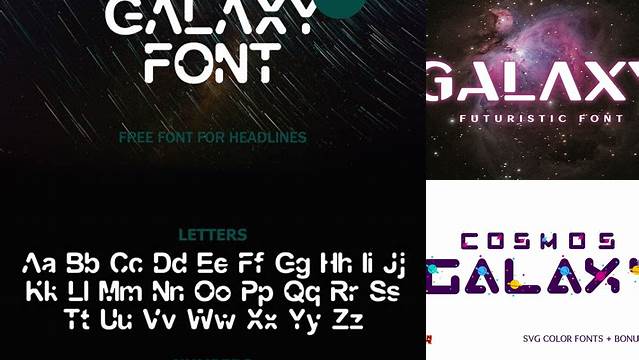
Free Space Fonts: Galactic Typography For Your Designs
Are you looking to add a touch of cosmic magic to your designs? Look no further! Space fonts are here to transport your projects to another galaxy. Whether you're designing a sci-fi movie poster, a futuristic website, or a stellar presentation, the right font can make all the difference. In this article, we'll explore the vast universe of free space fonts, guiding you through the best options available and how to use them effectively. So, buckle up, space explorers, and let's dive into the world of intergalactic typography!
Why Choose Space Fonts?
Space fonts, with their futuristic, otherworldly designs, offer a unique way to capture the imagination. They evoke a sense of wonder, technology, and the unknown, making them perfect for a variety of projects. Think about it, guys, when you see a font that looks like it came straight out of a Star Wars movie, it instantly grabs your attention, right? That's the power of space fonts! They can add a layer of sophistication and visual interest that traditional fonts simply can't match.
Using space fonts in your designs is not just about aesthetics; it's about storytelling. These fonts help create a narrative, setting the tone and mood for your audience. Imagine designing a book cover for a science fiction novel. A bold, geometric space font can instantly convey the genre and pique the reader's interest. Or, consider creating a website for a tech startup. A sleek, modern space font can communicate innovation and forward-thinking. The possibilities are endless!
Moreover, space fonts are incredibly versatile. They work well in a range of applications, from digital designs to print materials. You can use them for headings, body text, logos, posters, and more. Their distinct character ensures that your message stands out, making your designs more memorable and impactful. Plus, with the abundance of free space fonts available online, you can experiment with different styles without breaking the bank. It's like having a whole galaxy of design options at your fingertips!
When selecting a space font, consider the overall message you want to convey. Are you aiming for a futuristic, high-tech feel? Or perhaps a more retro, sci-fi vibe? Different space fonts have different personalities, so choose one that aligns with your project's theme and tone. For instance, a font with sharp, angular lines might be perfect for a technology-focused project, while a font with rounded edges could be better suited for a more playful or whimsical design. Remember, the goal is to create a cohesive and visually appealing design that captures the essence of your message.
Another fantastic resource is DaFont. This website has been a go-to for designers for years, and it's packed with thousands of fonts, many of which are free for personal use. DaFont's interface is straightforward, allowing you to filter fonts by category, style, and license type. You can find a wide range of space fonts here, from futuristic and techy to retro and sci-fi. Just be sure to check the license terms for each font before using it in a commercial project, as some may require a donation or a commercial license.
FontSpace is another excellent option for finding free space fonts. This website offers a curated collection of fonts, with a focus on high-quality designs. FontSpace also has a user-friendly interface, making it easy to search and filter fonts. Many of the fonts on FontSpace are free for commercial use, but it's always a good idea to double-check the license before using them in your projects.
In addition to these popular websites, you can also find free space fonts on smaller, niche platforms and designer portfolios. Sites like Behance and Dribbble often feature free font offerings from talented designers looking to showcase their work. These hidden gems can sometimes offer unique and creative fonts that you won't find anywhere else. However, be sure to carefully review the licensing terms before using fonts from these sources, as they may vary depending on the designer's preferences.
Whether you're working on a sci-fi movie poster, a futuristic website, or any project that needs a touch of cosmic magic, space fonts are a powerful tool in your design arsenal. Don't be afraid to experiment with different styles and combinations to find the perfect fit for your vision. And most importantly, have fun! Designing with space fonts is an adventure, so embrace the journey and let your creativity soar among the stars. Now go forth and create something truly stellar!